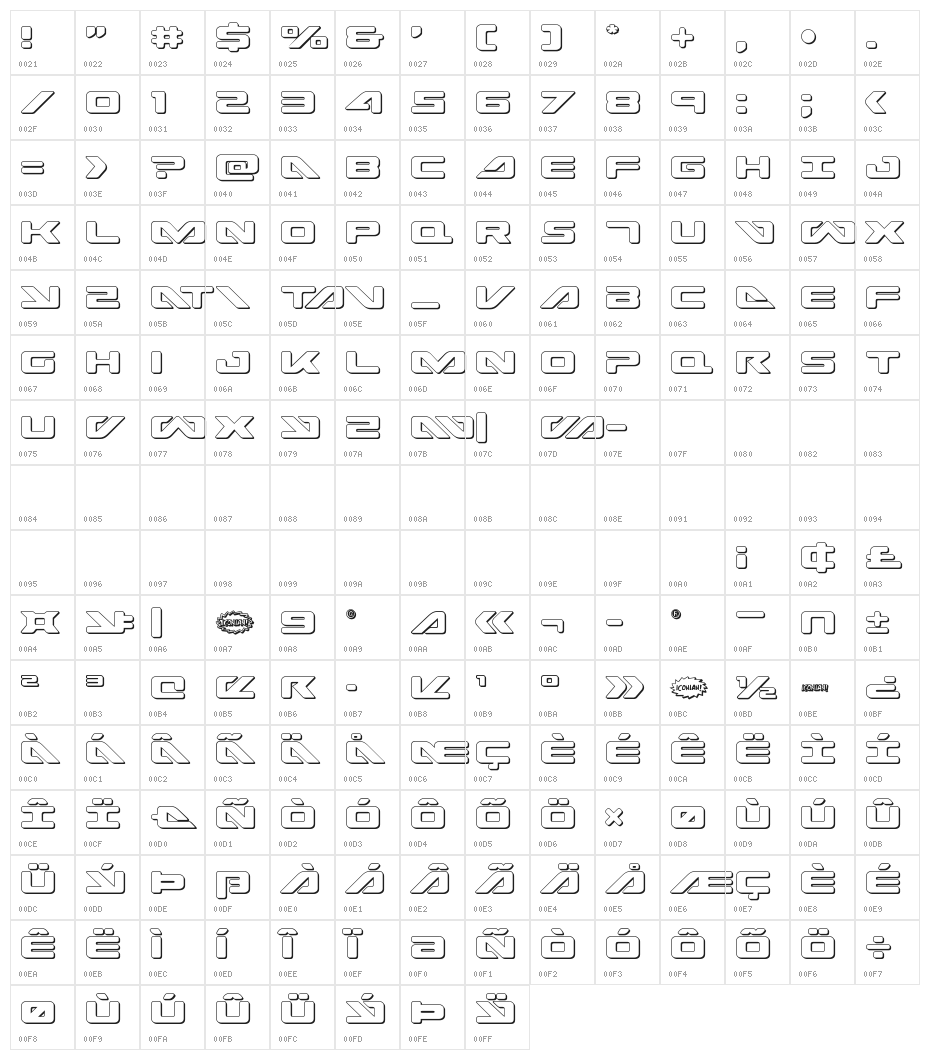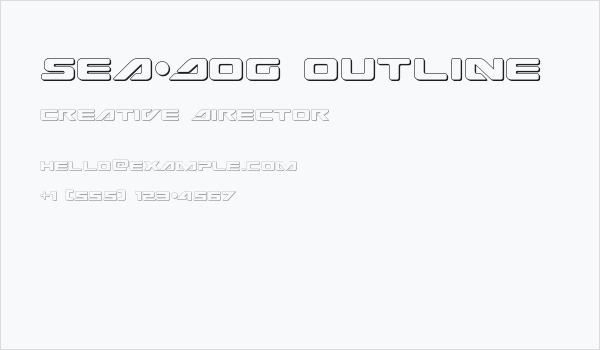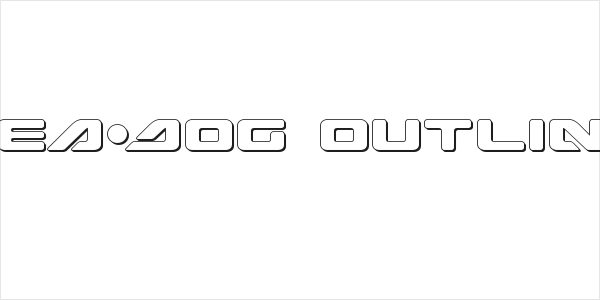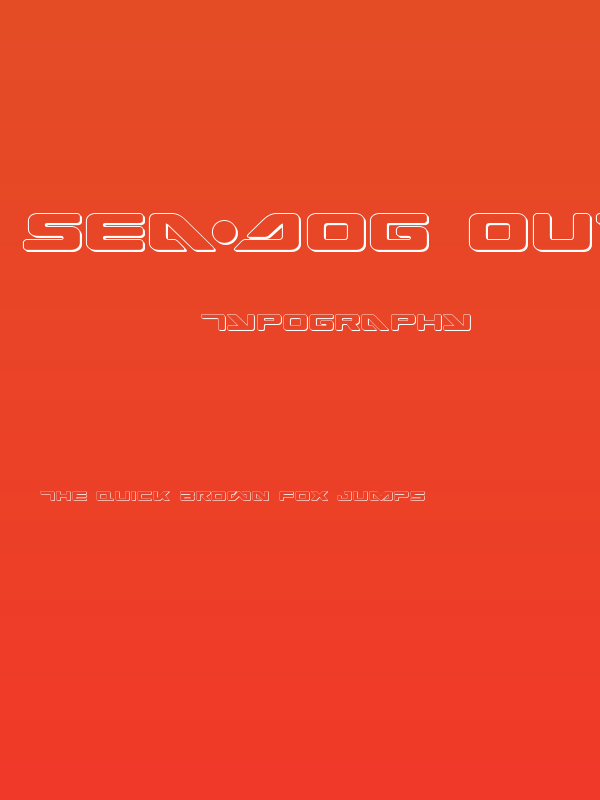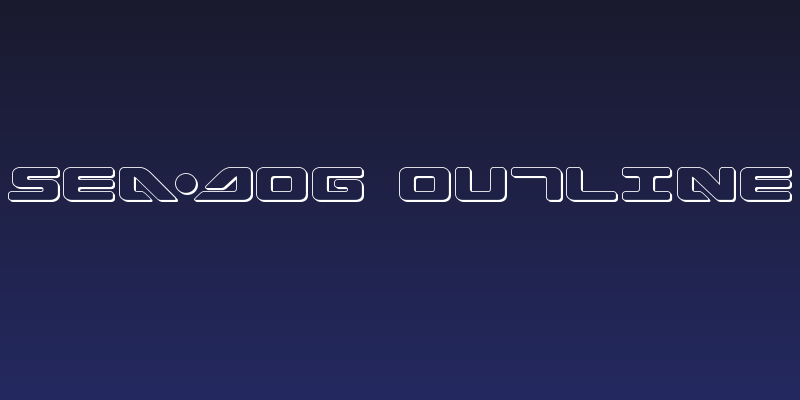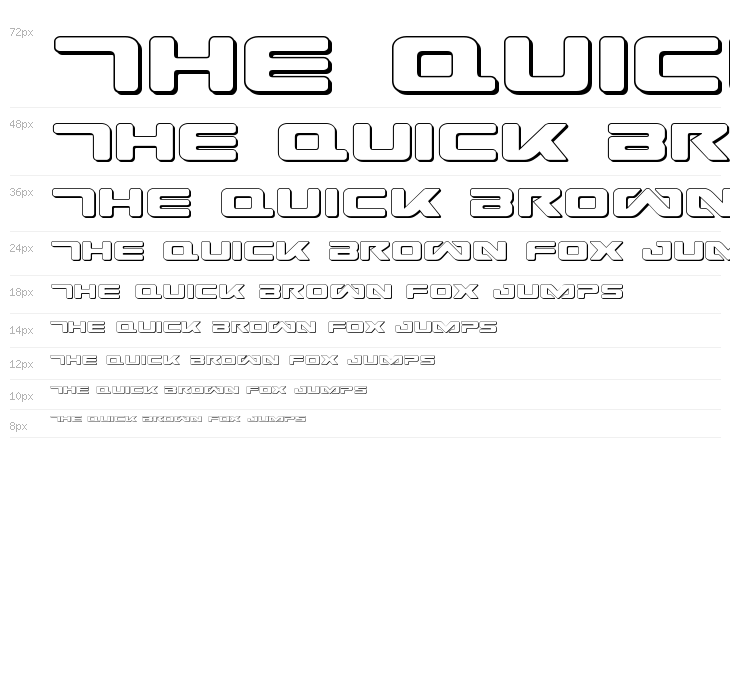
Sea-Dog Outline Font
Sea-Dog Outline Description
This font features a bold, futuristic outline style with geometric shapes and sharp angles. Each character is defined by a consistent, hollow outline that gives it a distinctive, modern appearance. The uppercase and lowercase letters share a similar structure, maintaining uniformity across the alphabet. Numbers and special characters are designed with the same outline effect, ensuring a cohesive look. The font's unique style makes it ideal for projects that require a contemporary and eye-catching aesthetic.
| Proposed Projects | Ideal for sci-fi themed designs, video game titles, posters, and branding that requires a modern, standout look. |